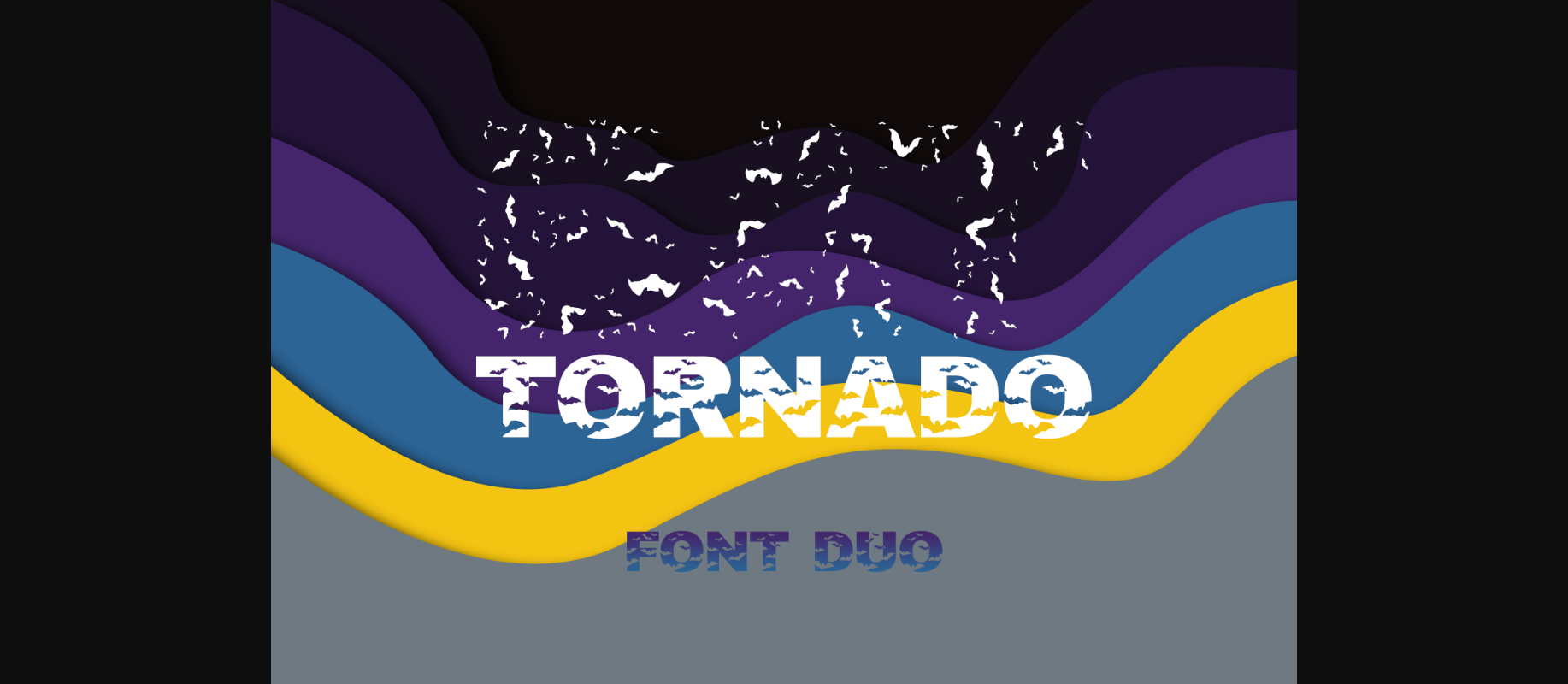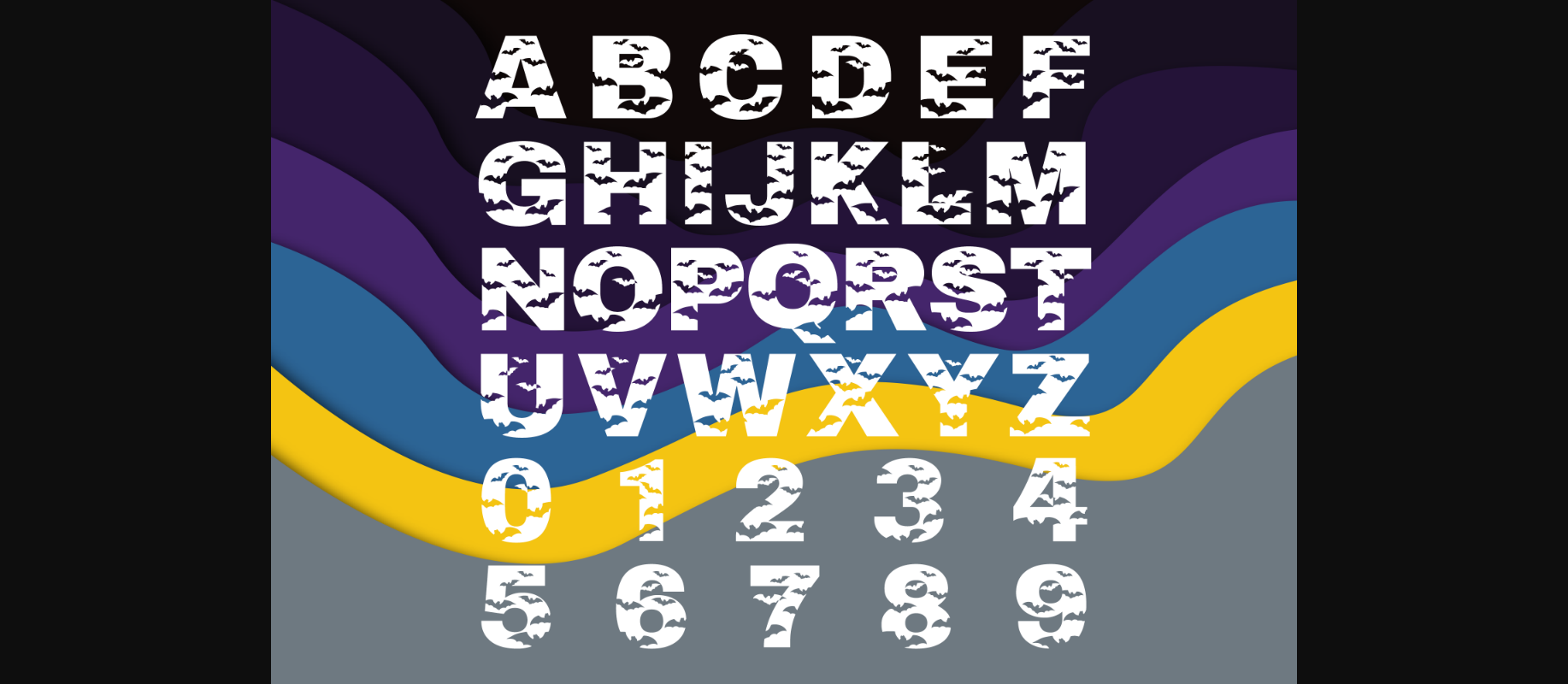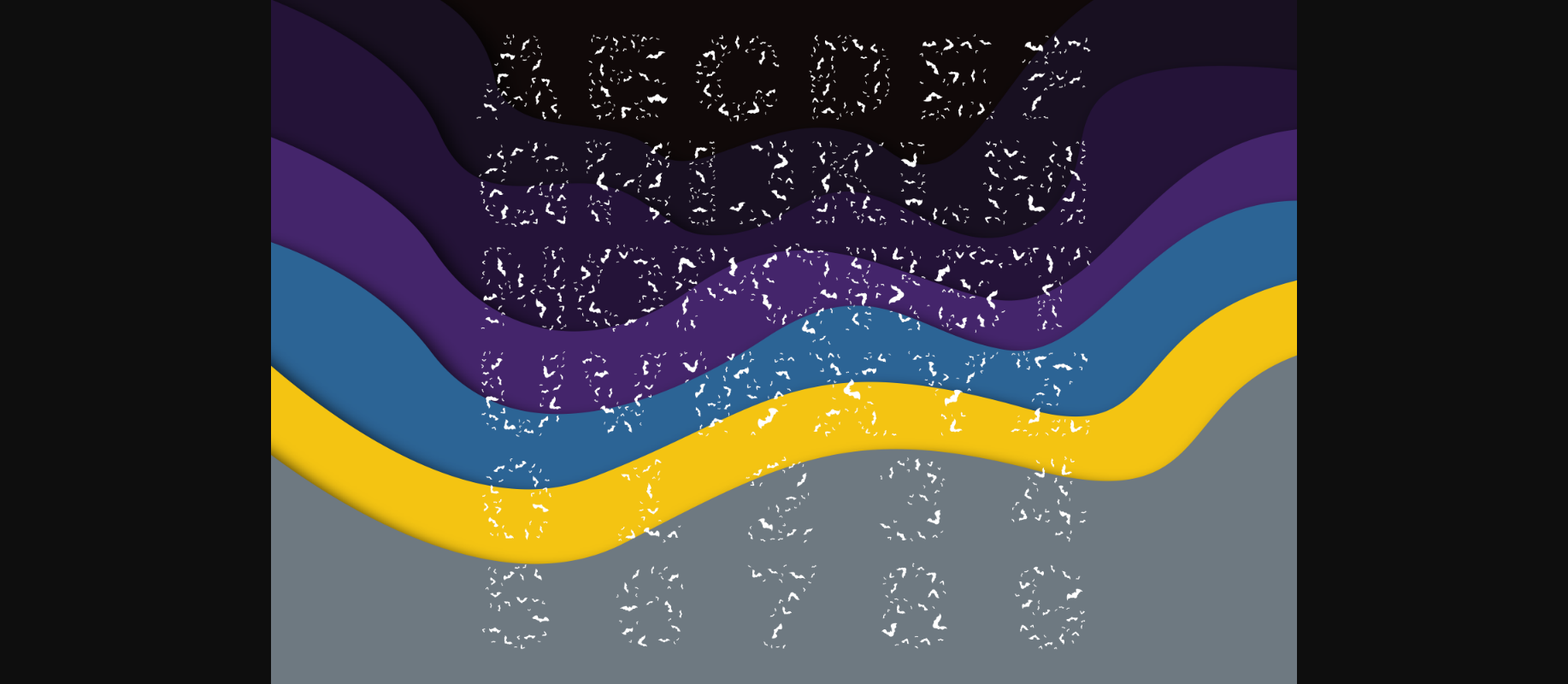
About Bat Tornado Duo Font
Bat Tornado Duo is an incredibly cool and spooky decorative font. Add it to each of your Halloween designs, and they will instantly stand out.